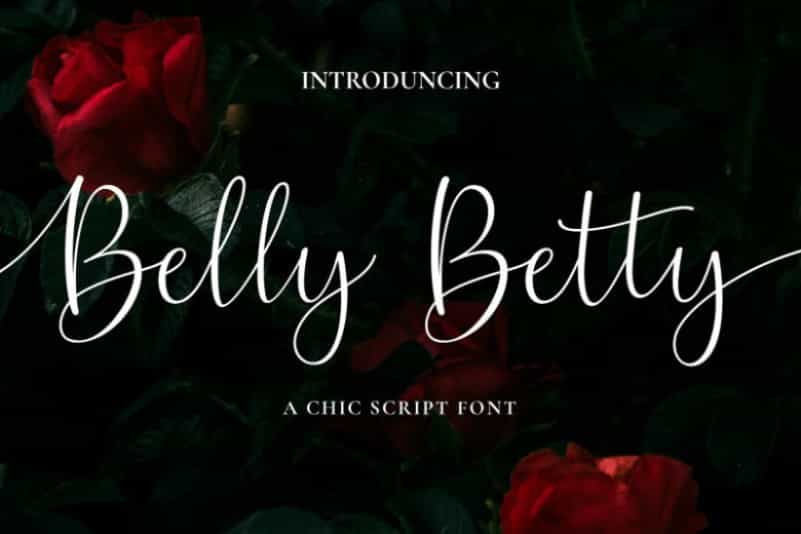
Introducing Belly Betty Font. Belly Betty Script Font is a lovely, contemporary and new calligraphy font with lots of alternative styles and swashes that make this font look natural, elegant and perfect for any special project.